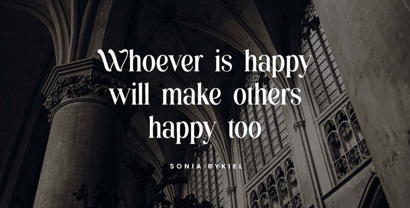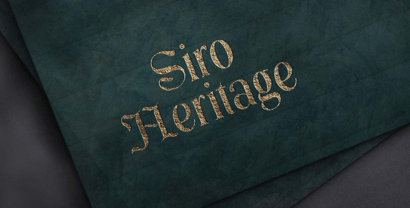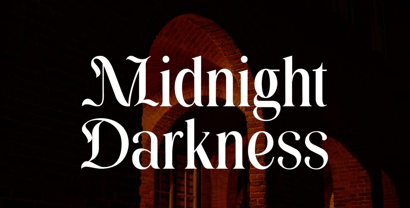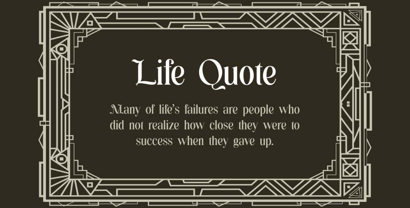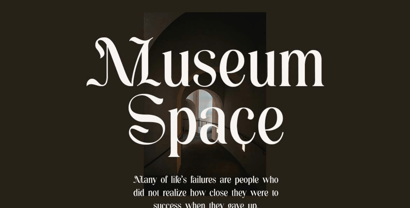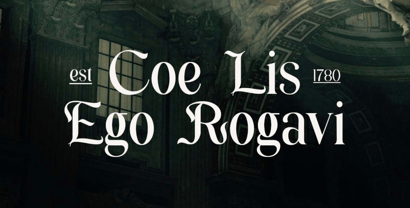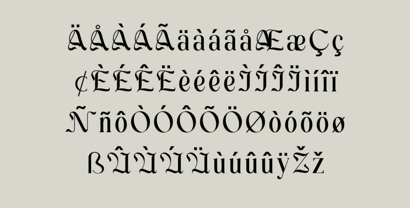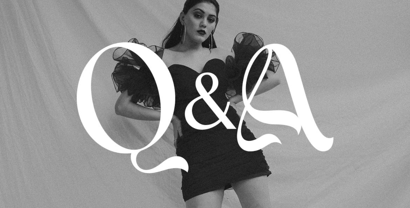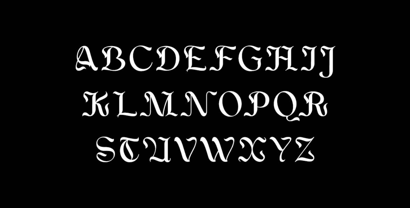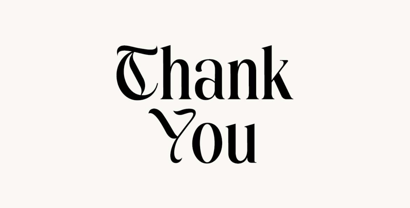
Midnight Darkness
The Midnight Darkness Font Family was designed by Hero and published by UICreative. Midnight Darkness contains 1 styles. More about this family
Introducing our new product the name is Midnight Darkness Display Serif Font. Midnight Darkness Display Serif Font that feels beautiful classy, elegant, and modern. This font is perfectly suited for a wide variety of projects, such as signature, stationery, logo, wedding, typography quotes, magazine or book covers, website headers, clothing, branding, packaging design, and more. Also, fashion-related branding or editorial design displays both masculine and feminine qualities.
Midnight Darkness is a captivating display serif font that combines dramatic elegance with gothic-inspired elements. Its bold letterforms feature sharp contrasts between thick and thin strokes, creating a sense of mystery and sophistication that immediately draws the viewer's eye. This striking typeface balances darkness and refinement, making it perfect for projects that require a touch of dramatic flair while maintaining professional readability and artistic distinction.
Inspired by the enigmatic beauty of midnight hours, this font embodies the allure of darkness with its elegant serifs and commanding presence. The carefully crafted characters feature distinctive terminals and subtle gothic influences that evoke a sense of timeless mysticism and theatrical elegance. Whether used for luxury branding, editorial headlines, or atmospheric design projects, Midnight Darkness delivers a powerful visual impact that resonates with audiences seeking depth and character in typography.
Ideal for book covers, film titles, luxury product packaging, and dramatic editorial designs, Midnight Darkness Display Serif Font provides the perfect balance of readability and artistic expression, helping your projects stand out with its unique blend of gothic elegance and contemporary design sensibilities.